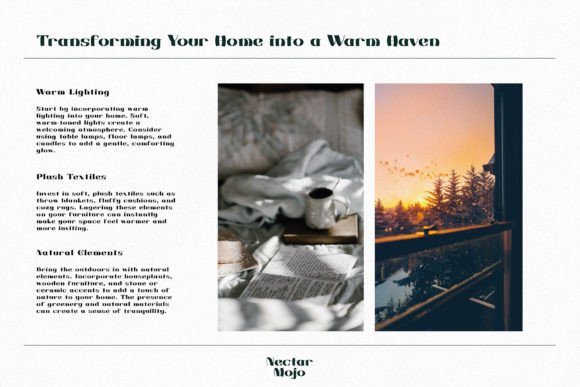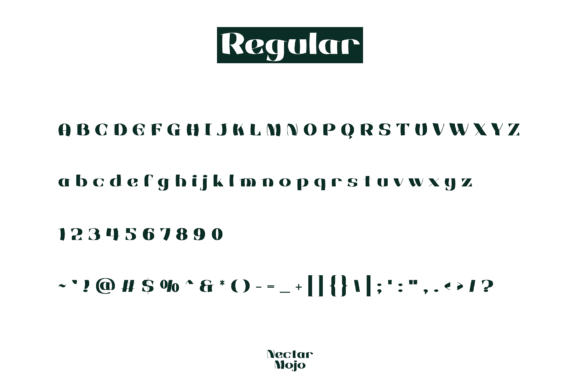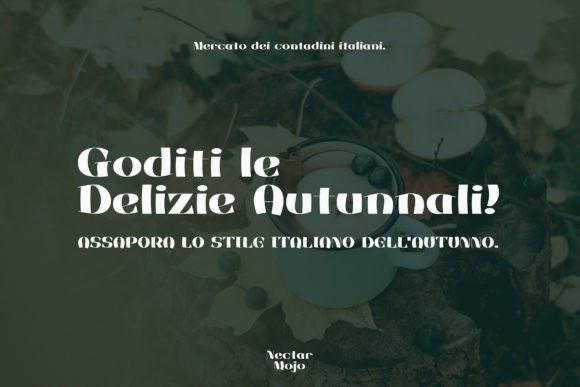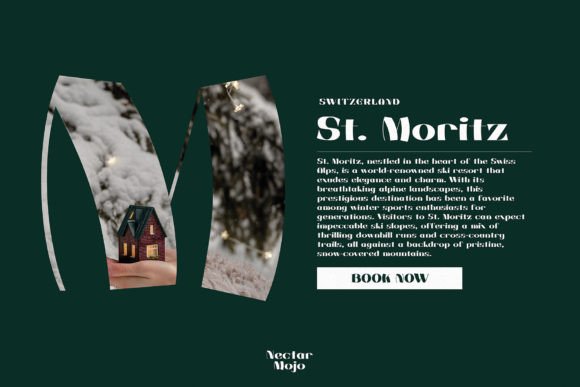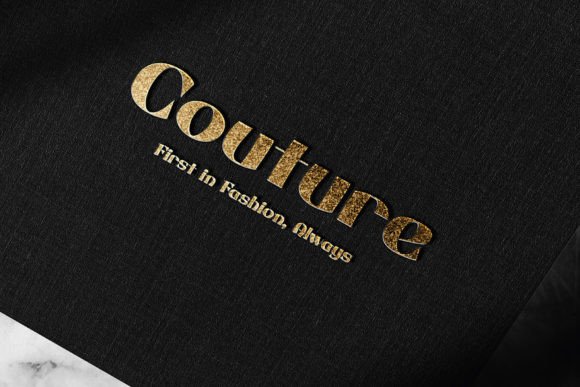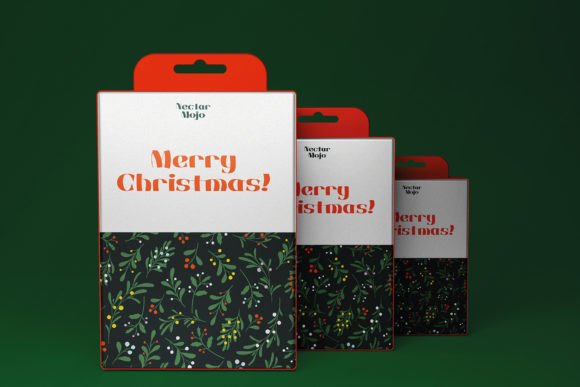
Introduction to Nectar Mojo Font
Have you ever found yourself lost in a world of vintage glamour, where the jazz is hot, the champagne is cold, and the style is timeless? That’s exactly what the Nectar Mojo Font is all about – capturing the essence of the roaring twenties with its stunning vintage typography. As designers, we’re always on the lookout for high-quality design resources that can elevate our creative projects to the next level, and Nectar Mojo Font is definitely one to watch.
With its unique blend of geometric shapes and streamlined curves, Nectar Mojo Font is a valuable addition to any designer’s toolkit. Its transparent background and clean lines make it perfect for use in branding, packaging, and editorial work, where a touch of vintage charm is just what’s needed to make a project stand out. And the best part? You can download it for free, making it an accessible design resource for creatives of all levels.
- Includes a range of font styles, from casual to elegant, to suit various design needs
- Designed to be highly legible, making it suitable for both digital and print projects
Honest Review: Nectar Mojo Font
I recently had the chance to work with the Nectar Mojo Font, and I must say it’s a great addition to any design resource collection. This high-quality font is perfect for creative projects that require a unique touch.
One of the things that stands out about the Nectar Mojo Font is its versatility. With a wide range of characters and styles, it’s easy to find the perfect fit for your project. The font also includes a transparent background, making it easy to layer and combine with other design elements.
- High-quality characters and styles
- Wide range of characters and symbols
- Limited support for non-English languages
- No bold or italic versions available
Overall, I’m impressed with the Nectar Mojo Font. It’s a great resource for designers looking for a unique and high-quality font. While it may have some limitations, the benefits far outweigh the drawbacks. I’d definitely recommend it for any creative project.
Nectar Mojo Font
The Nectar Mojo Font is a high-quality design resource perfect for creative projects that require a touch of elegance and sophistication. This versatile font is available for free download and features a transparent background, making it easy to integrate into your design.
Tips for Getting the Most Out of Nectar Mojo Font
Use the Nectar Mojo Font to add a touch of sophistication to your designs.
Combine the font with other design elements to create a cohesive look.
Experiment with different font sizes and colors to add visual interest.
The Nectar Mojo Font is perfect for:
Business cards and marketing materials
Blog posts and articles
Any design project that requires a touch of elegance and sophistication.
Is the Nectar Mojo Font suitable for print and digital designs?
Yes, the Nectar Mojo Font is designed to be versatile and suitable for both print and digital designs. Its high-quality vector format ensures crisp and clear rendering on various mediums, including business cards, brochures, and digital screens. However, if you’re planning to use the font for large-scale printing, we recommend checking the font’s scalability and legibility at the desired size.